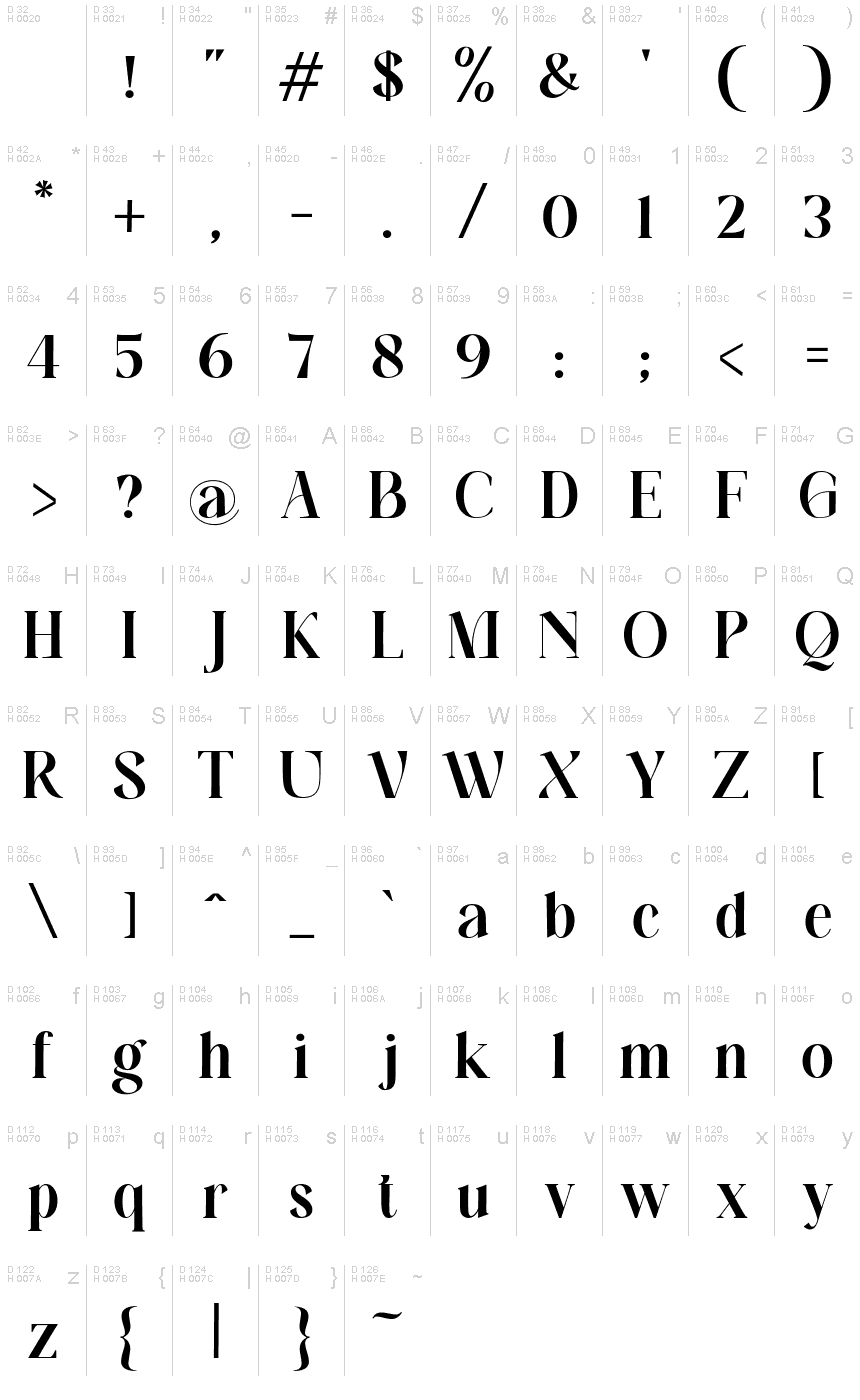
Balgon Serif Regular
Balgon Serif by Typehill Studio is not just a font; it's the embodiment of elegance meeting modernity. Its semi-light weight and semi-condensed width forge a delicate balance, making it an impeccable choice for those seeking to infuse their creative projects with both classic appeal and contemporary flair. The serif style of Balgon Serif adds a touch of sophistication that makes text appear inviting and authoritative.
Ideal for editorial work, branding, or any design that demands a touch of class without sacrificing readability, this font is poised to elevate your creative expression across various mediums.
Embrace the versatility and distinctiveness that Balgon Serif brings to the table – where timeless design meets modern-day precision.